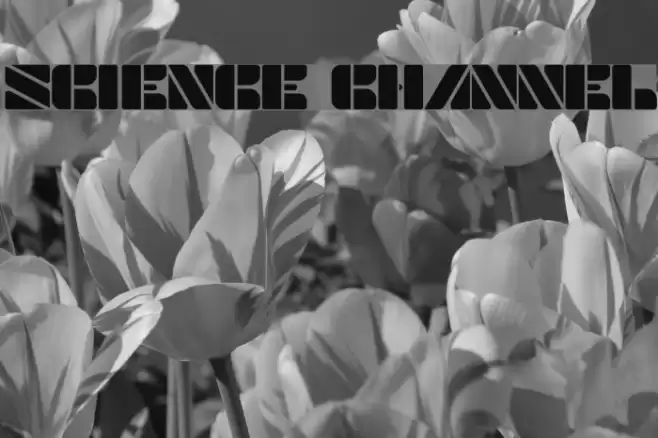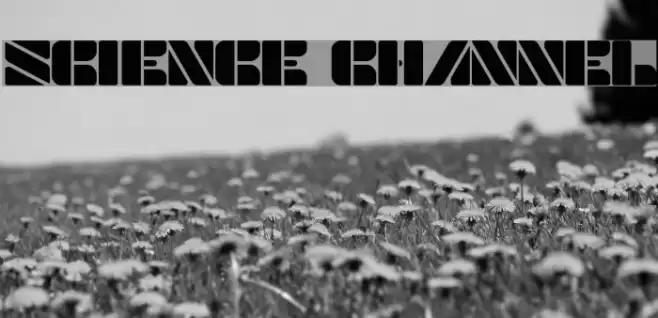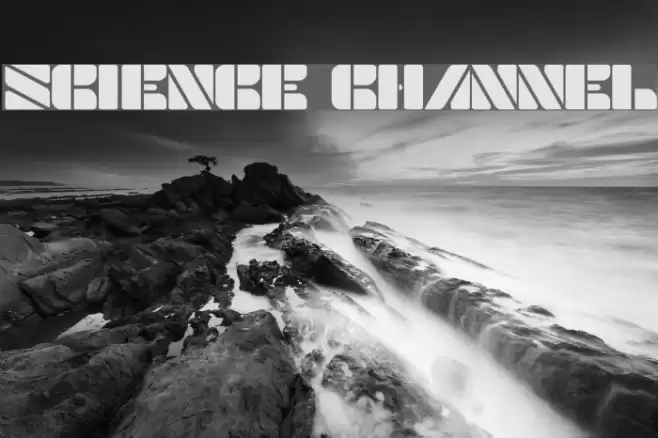
SCIENCE CHANNEL Font
SCIENCE CHANNEL Description
This font features a bold, geometric design with a futuristic and industrial feel. The characters are constructed with thick, block-like shapes that are segmented, creating a stencil-like appearance. The uppercase letters are uniform in height, with a consistent width that gives the font a strong, cohesive look. The design incorporates sharp angles and straight lines, contributing to its modern and edgy aesthetic. This font is highly stylized, making it ideal for projects that require a distinctive and impactful visual presence.
A bold, geometric font with a futuristic, industrial style and stencil-like appearance from Uncategorized fonts.
- Proposed Projects: Ideal for sci-fi themed posters, technology branding, video game titles, and futuristic event flyers.
- Overall Style: Futuristic